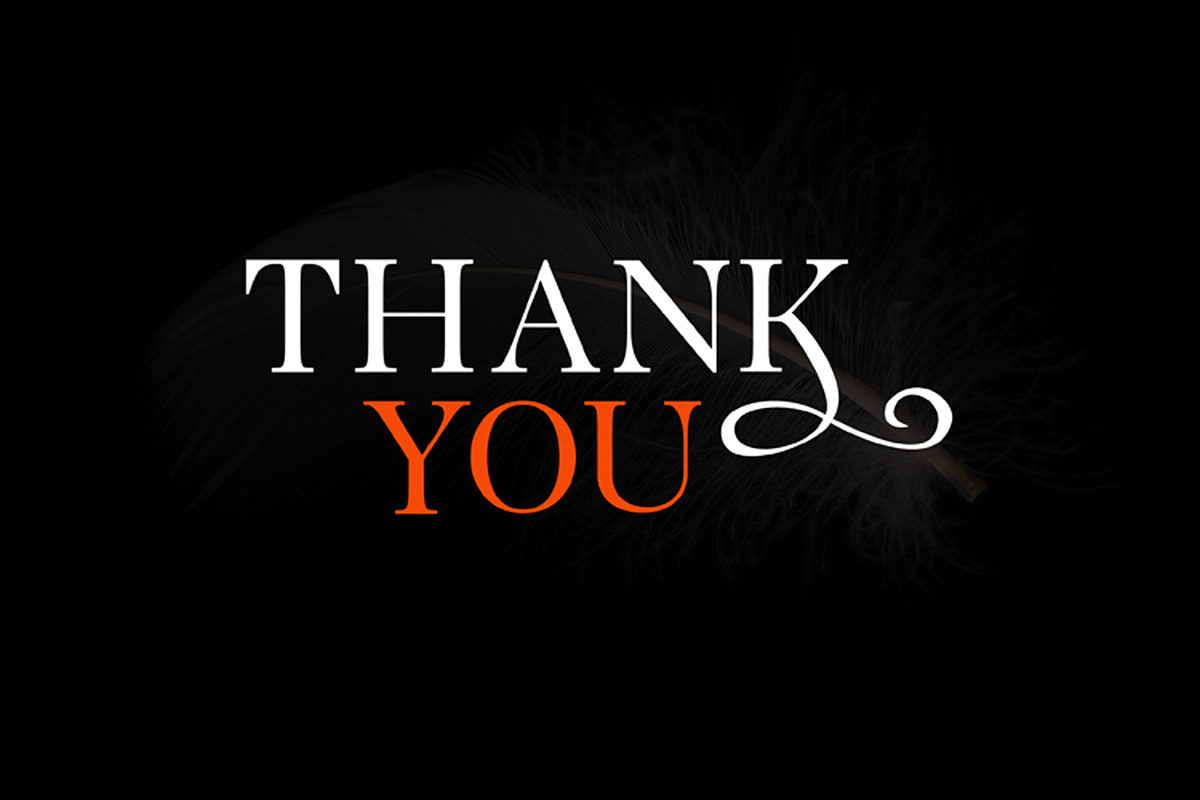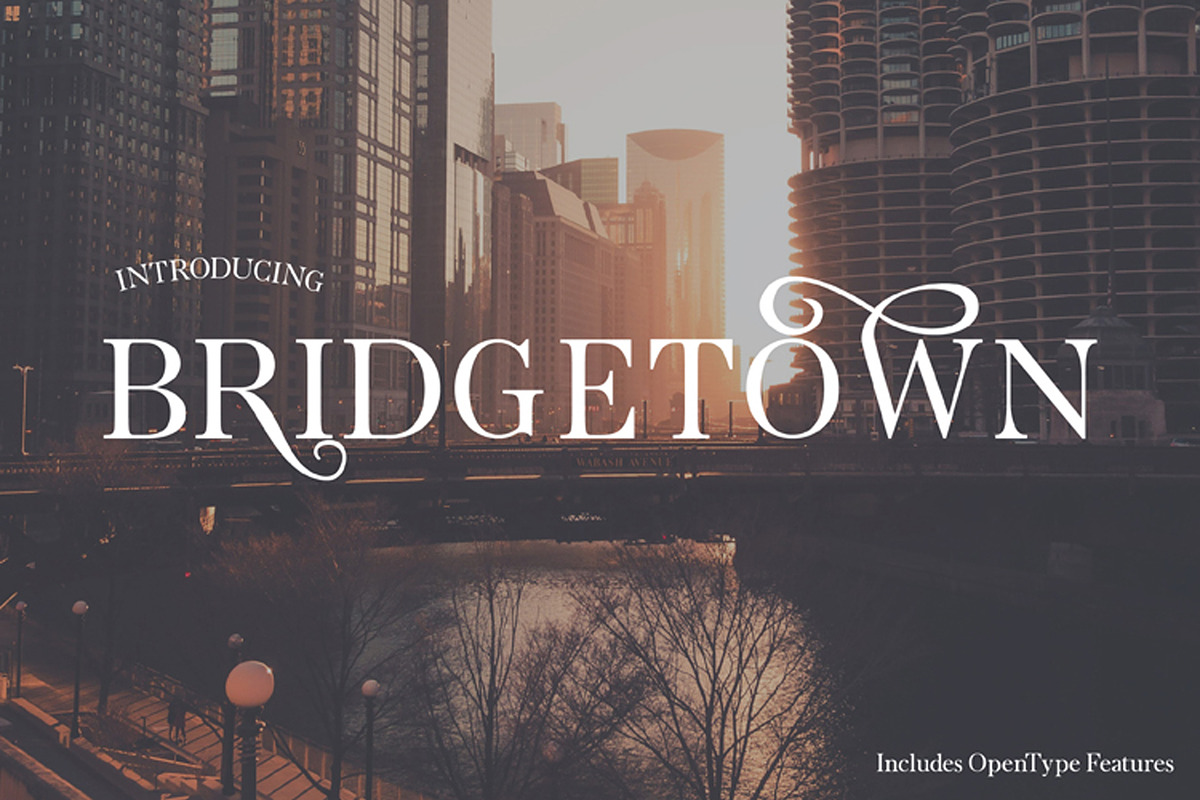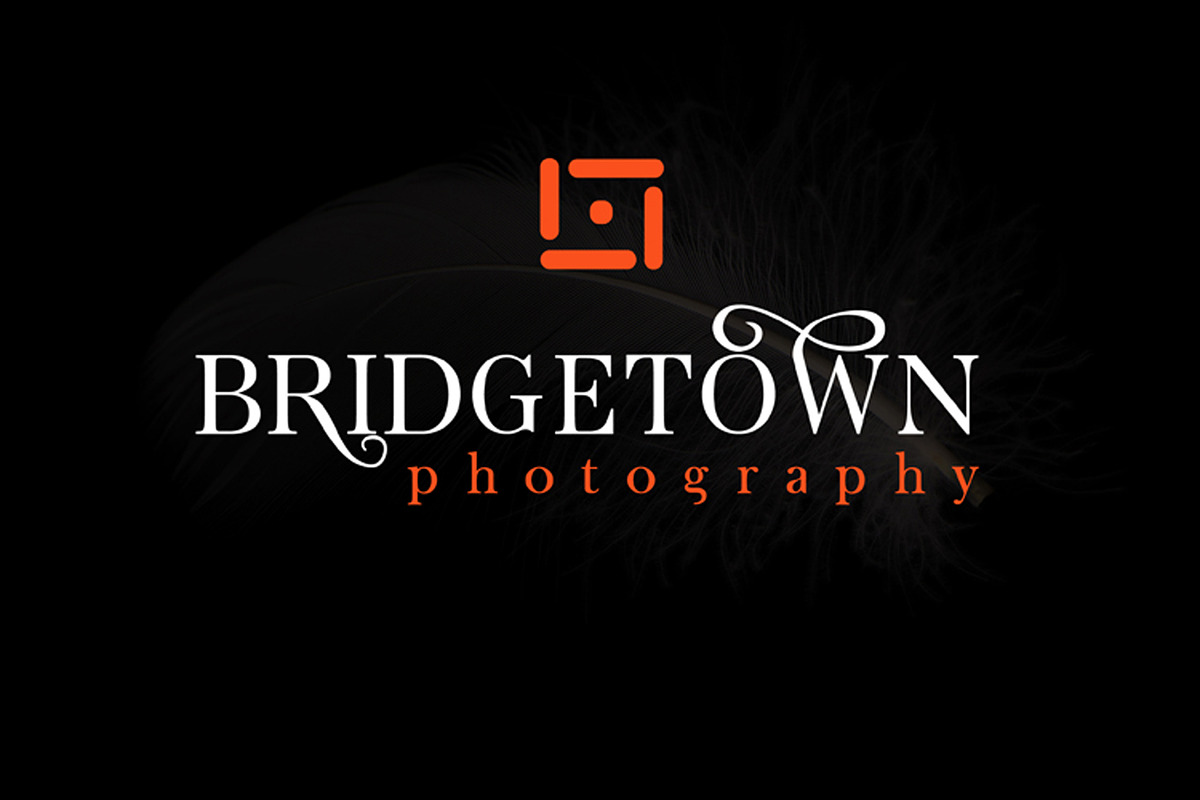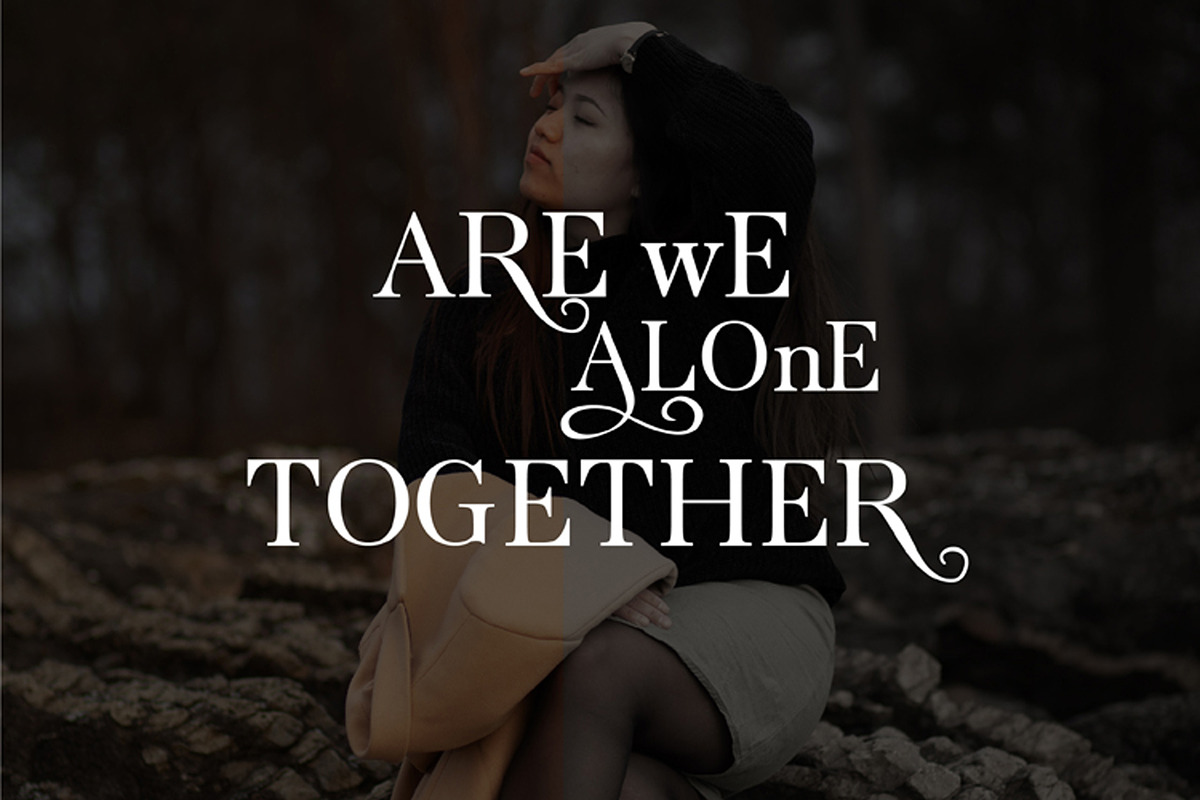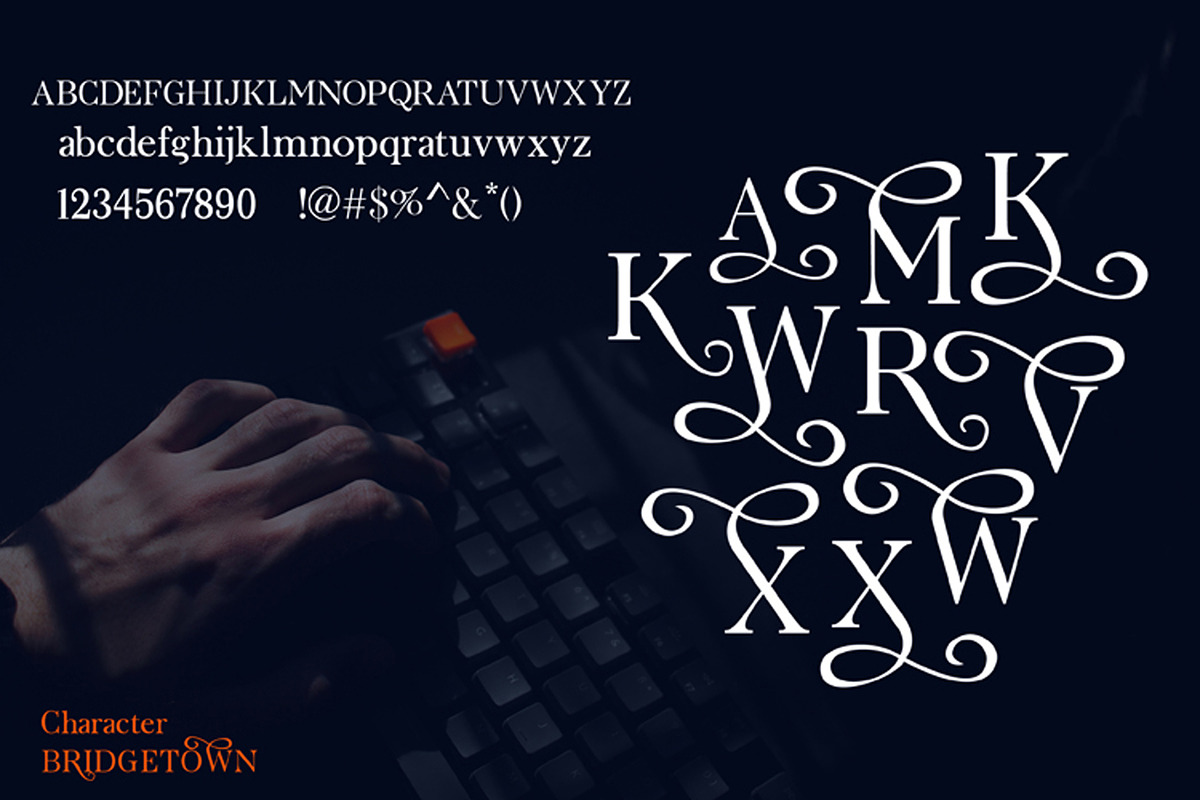
Bridgetown
Bridgetown is a beautiful, elegant, clean and stylish font equipped with several additional glyphs so that it is even more attractive to complement your design. This font is perfect for wedding cards, t-shirts, branding logos, posters, mug designs and more